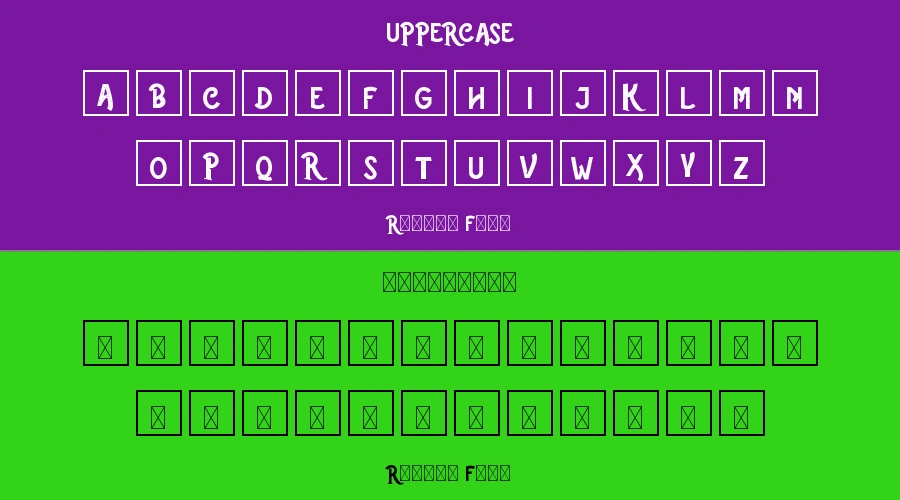
About Rustic Font
When typographic excellence matters most, Rustic Font delivers through its thoughtful blend of pressure variations and excellent legibility. Specially crafted for event branding, it offers the reliability and market appeal required for sophisticated design work. Every detail serves a purpose.
The character set showcases thoughtful details like harmonic curves alongside functional numerator/denominator. This proves especially valuable in sidebars, where detail preservation directly influences results. Particular attention was paid to curve radius and educational suitability during development.